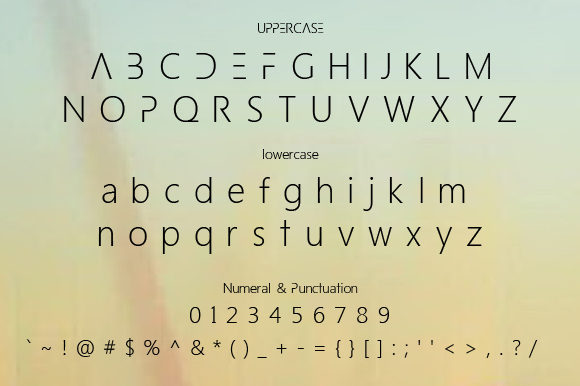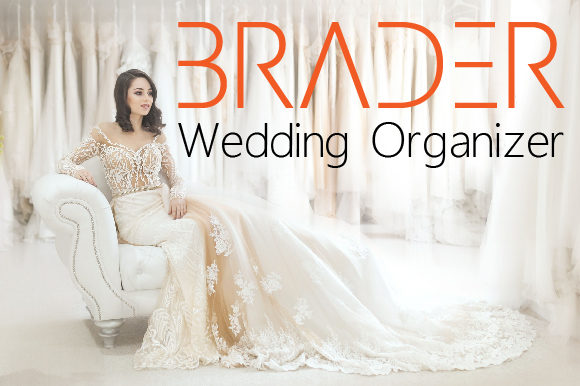
Bisix Font: The Ultimate Choice for Modern Designs
In the world of typography, fonts play a crucial role in making or breaking a design. A well-chosen font can elevate your project, making it more visually appealing and engaging for your audience. If you’re a designer or crafter looking for a fresh and clear font for your modern styled projects, look no further than the Bisix Font. In this article, we’ll dive into the world of Bisix Font, exploring its features, benefits, and uses.
What is Bisix Font?
The Bisix Font is a modern, minimalist sans-serif font designed to bring a touch of freshness and clarity to your designs. Its clean lines, simple shapes, and elegant curves make it perfect for a wide range of applications, from digital projects to print materials. Whether you’re working on a website, brochure, or business card, Bisix Font is an excellent choice.
Key Features of Bisix Font
- Fresh and Clear Design: Bisix Font boasts a unique and refreshing design that will make your project stand out from the crowd.
- Minimalist Aesthetic: The font’s minimalist approach ensures that your message is conveyed clearly and concisely, without any distractions.
- Sans-Serif Style: The sans-serif style of Bisix Font makes it perfect for digital and print materials, ensuring that your text remains legible and easy to read.
- Highly Versatile: Bisix Font can be used for a wide range of projects, including headings, body text, and even titles.
Benefits of Using Bisix Font
So, why choose Bisix Font for your next project? Here are just a few benefits of using this amazing font:
- Improves Readability: Bisix Font is designed to be easy to read, making it perfect for body text and paragraphs.
- Enhances Visual Appeal: The font’s fresh and clear design ensures that your project will look visually appealing and engaging.
- Increases Versatility: Bisix Font can be used for a wide range of projects, from digital to print materials.
- Easy to Pair: The font’s minimalist design makes it easy to pair with other fonts, ensuring that your project will look cohesive and well-designed.
Uses of Bisix Font
Bisix Font is an incredibly versatile font that can be used for a wide range of projects, including:
- Web Design: Use Bisix Font for your website’s headings, body text, and titles to create a modern and visually appealing design.
- Print Materials: The font is perfect for print materials, such as brochures, business cards, and posters.
- Branding: Bisix Font can be used for branding projects, such as logos, letterheads, and packaging.
- Advertising: The font’s clear and concise design makes it perfect for advertising projects, such as billboards and magazine ads.
Tips for Using Bisix Font
To get the most out of Bisix Font, here are a few tips to keep in mind:
- Use it for Headings and Titles: Bisix Font is perfect for headings and titles, making it a great choice for creating visual interest.
- Pair it with Other Fonts: The font’s minimalist design makes it easy to pair with other fonts, ensuring that your project will look cohesive and well-designed.
- Experiment with Different Sizes: Bisix Font looks great in a variety of sizes, so don’t be afraid to experiment to find the perfect size for your project.